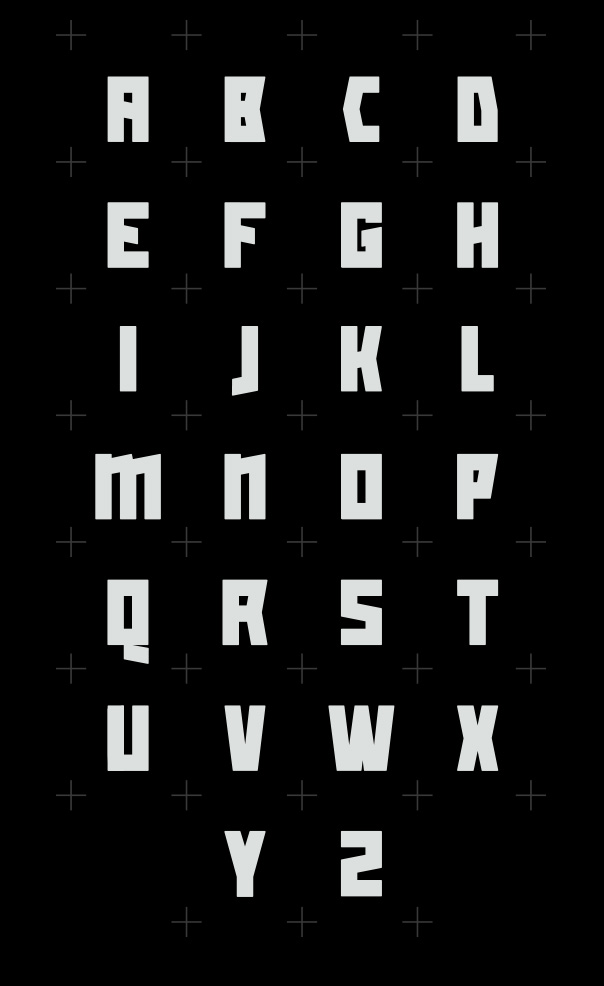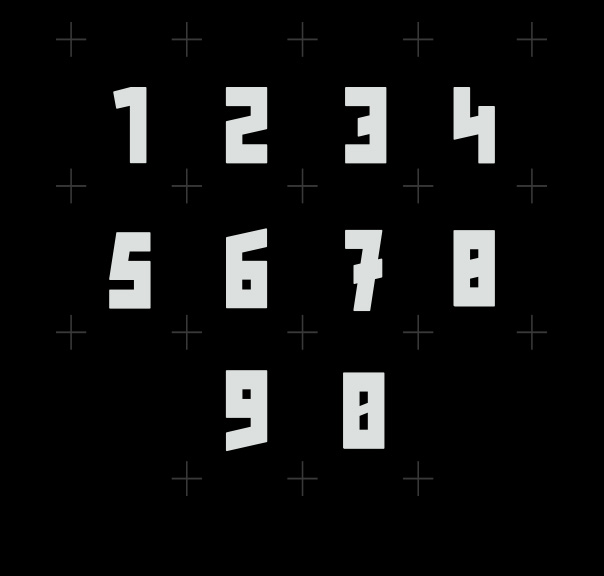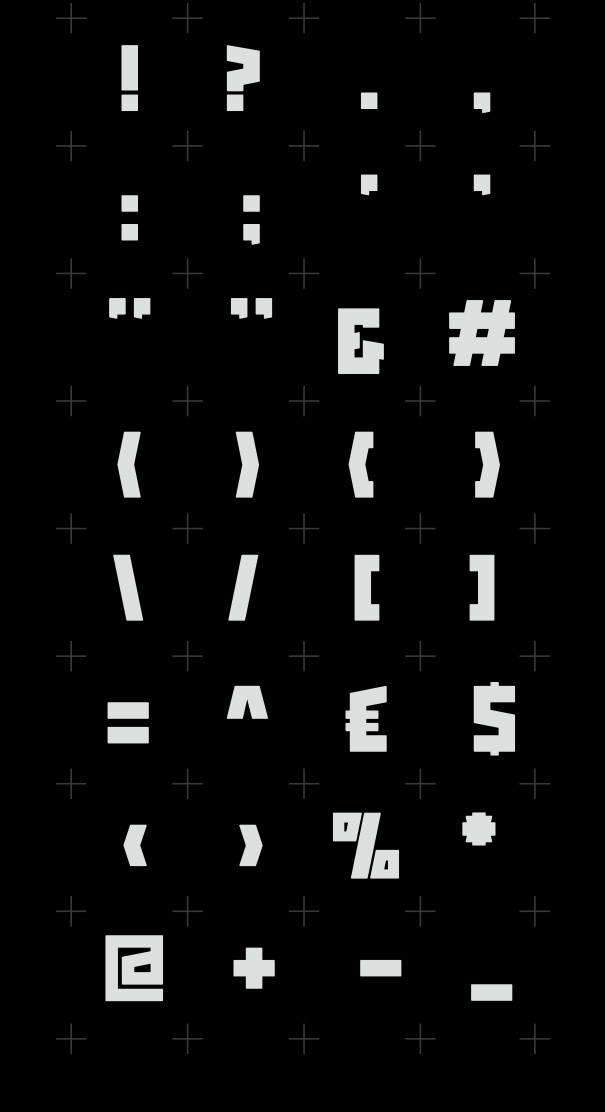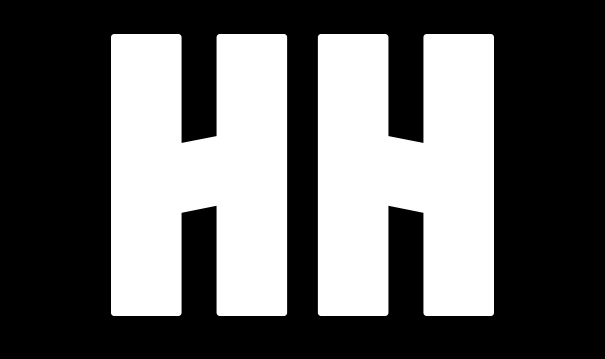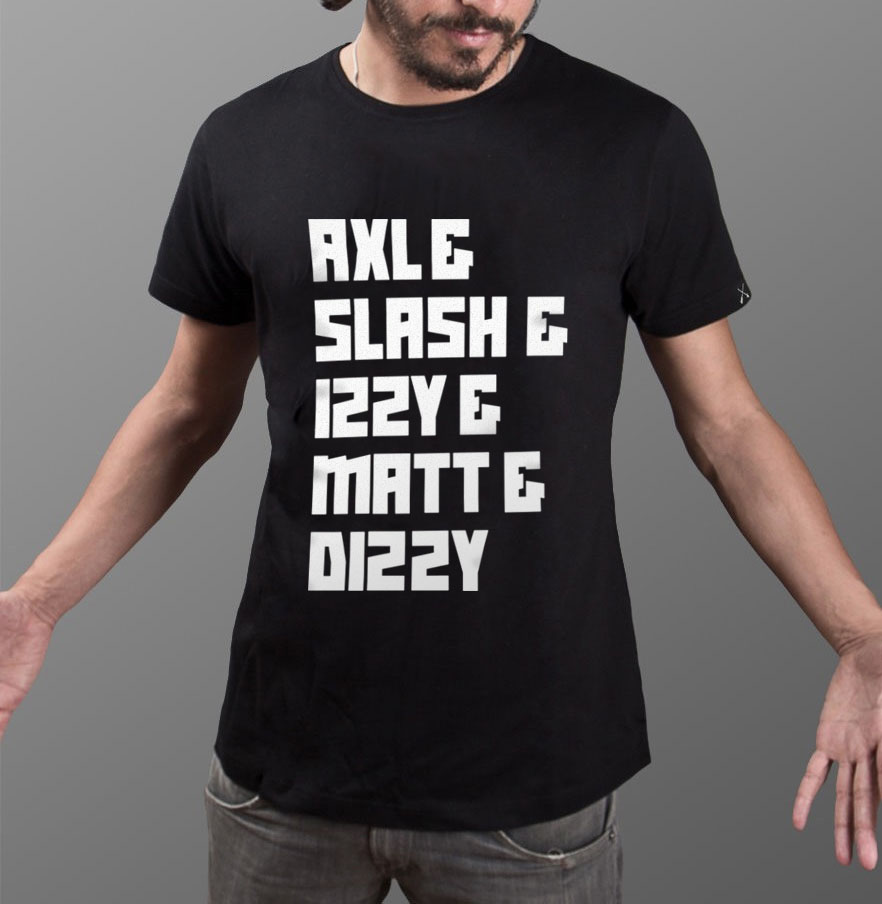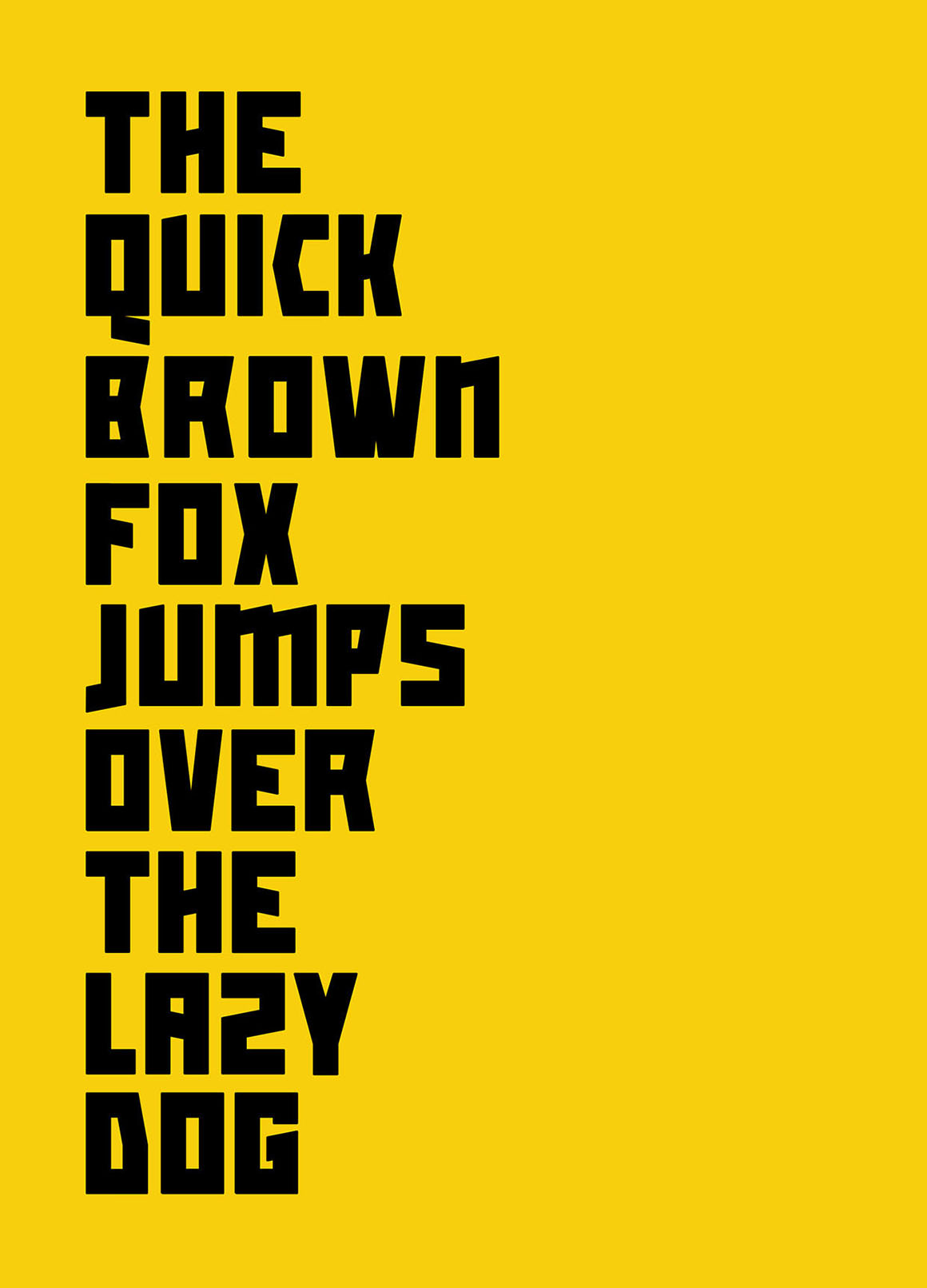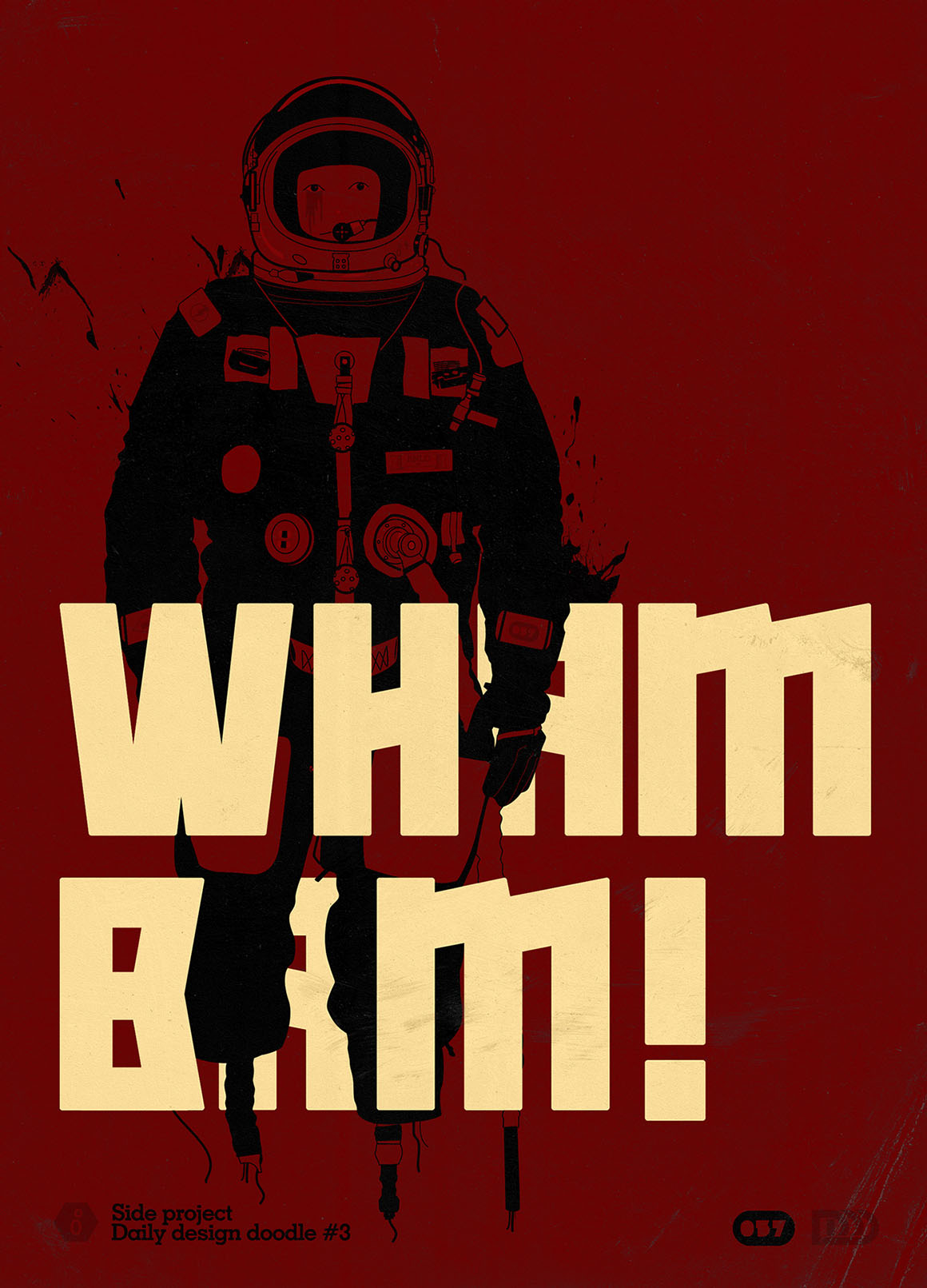
Slash – Free Display Font
This script custom font is from Ronald Vermeijs. It’s design is unique and will stand out from the crowd, and it is designed for type lovers. Rockstar designers who look at every detail and want to create something special.